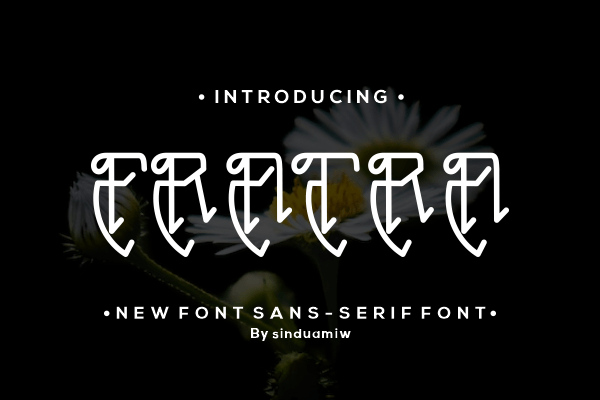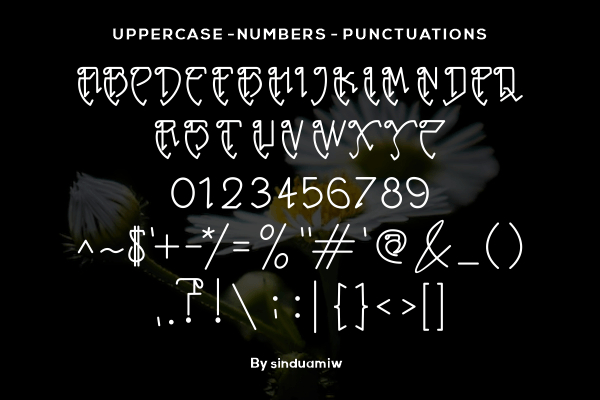
Fratra Font
About Fratra Font
Fratra is a powerful, cool, and modern blackletter font. It is perfect for alcoholic beverage labels, food packaging, exquisite branding projects, and more.